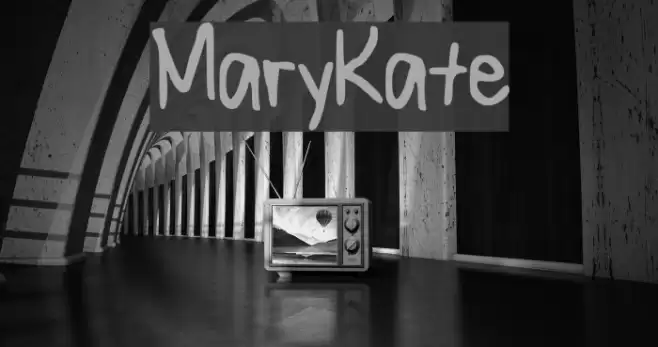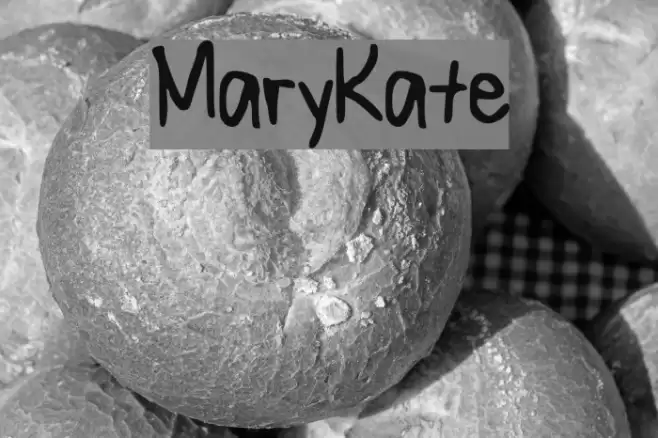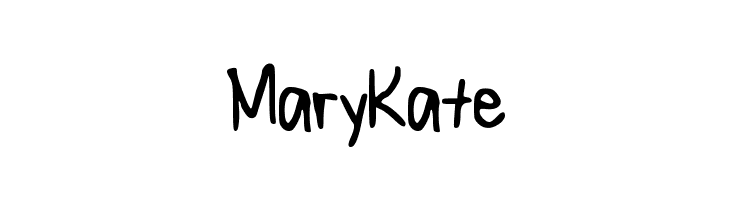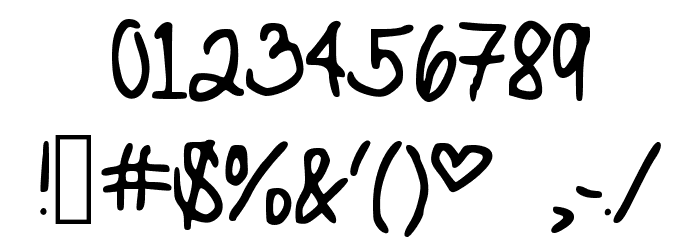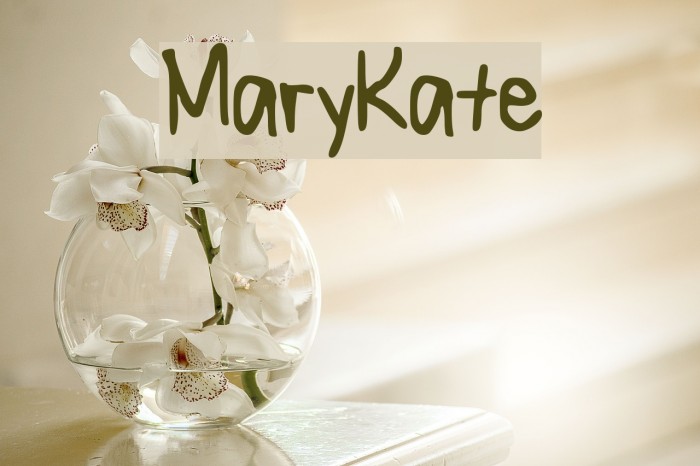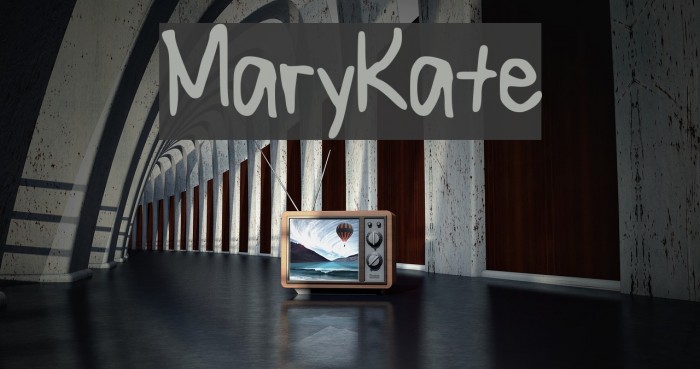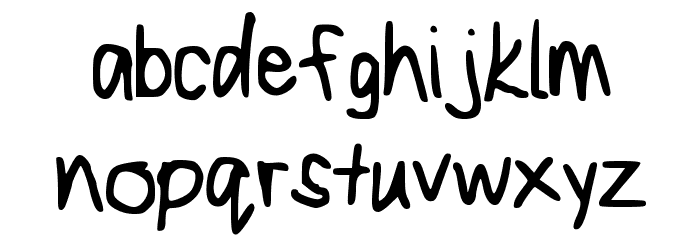
MaryKate Font
MaryKate Description
This font features a playful and casual handwritten style, characterized by its irregular and organic letterforms. The strokes are slightly uneven, giving it a personal and informal touch. The uppercase letters are bold and prominent, while the lowercase letters maintain a consistent flow with a slight slant. The numbers are clear and legible, matching the overall whimsical aesthetic. Special characters are creatively designed, adding to the font's charm. This style is perfect for projects that require a friendly and approachable feel, such as children's books, greeting cards, or informal branding.
A playful, handwritten font with an informal and whimsical style from Handwritten fonts.
- Proposed Projects: Ideal for children's books, greeting cards, casual branding, and playful designs.
- Overall Style: Casual, Playful
- Use Case: Headlines, Informal text, Creative projects